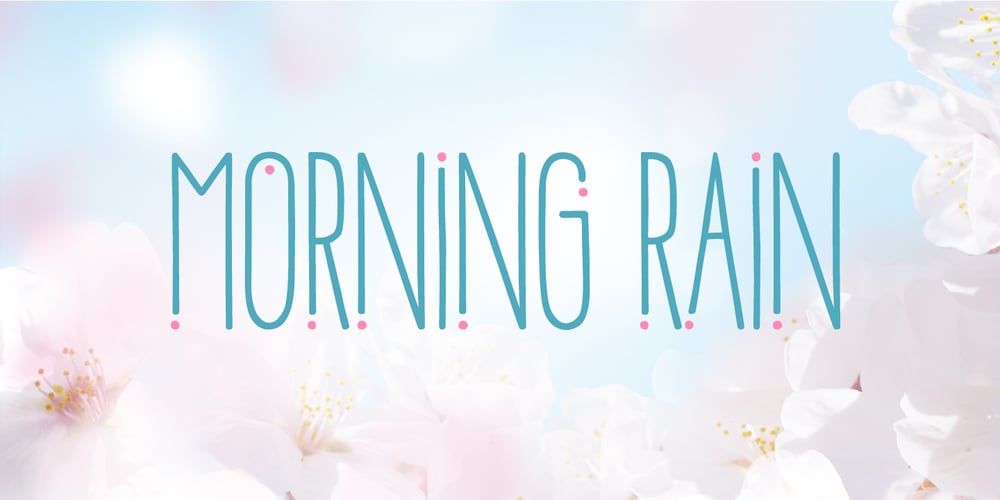
Morning Rain Dot
Morning Rain Dot font
Morning Rain Dot Font Family was designed by Tea Bažon and published by ToBeThea. Morning Rain Dot contains 1 styles and family package options. Morning Rain Dot is handmade font with cute little dots. It’s great for big and short titles. You can costumize it and make it look even cuter 🙂